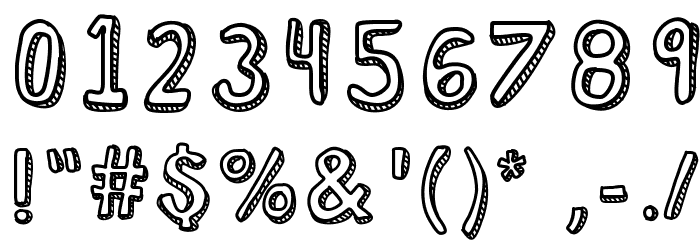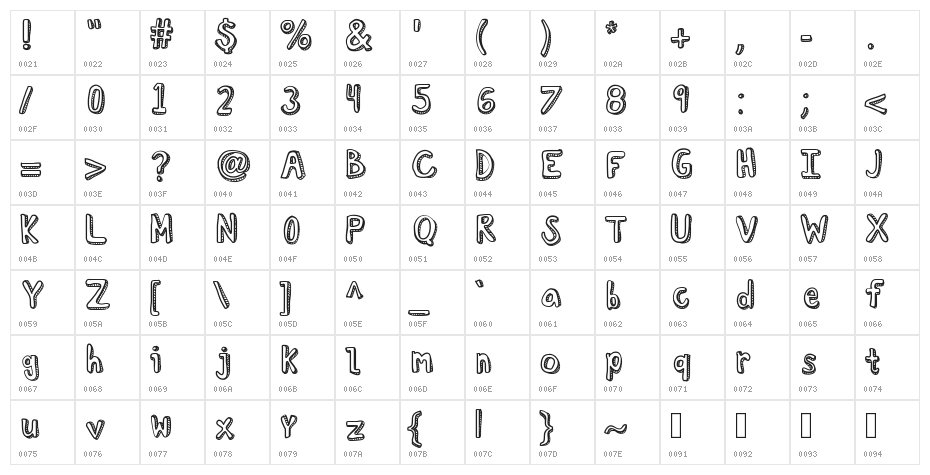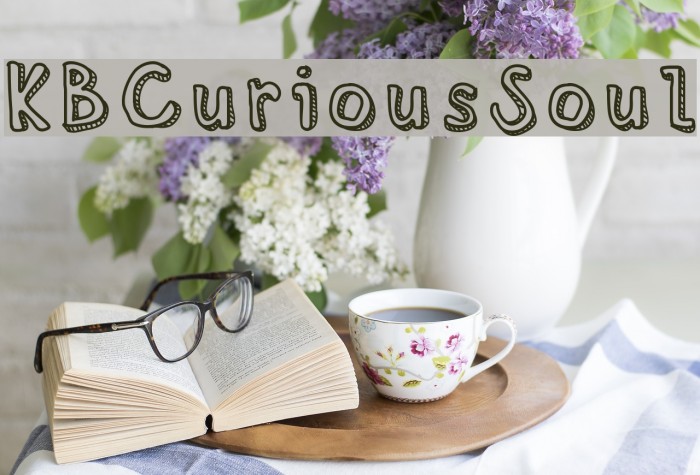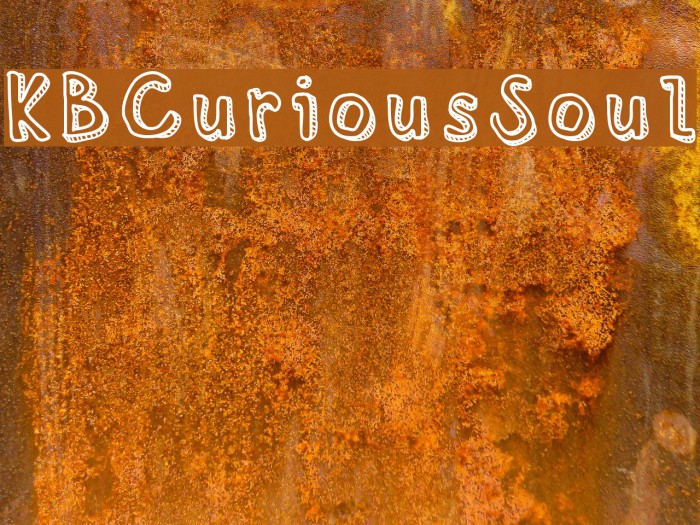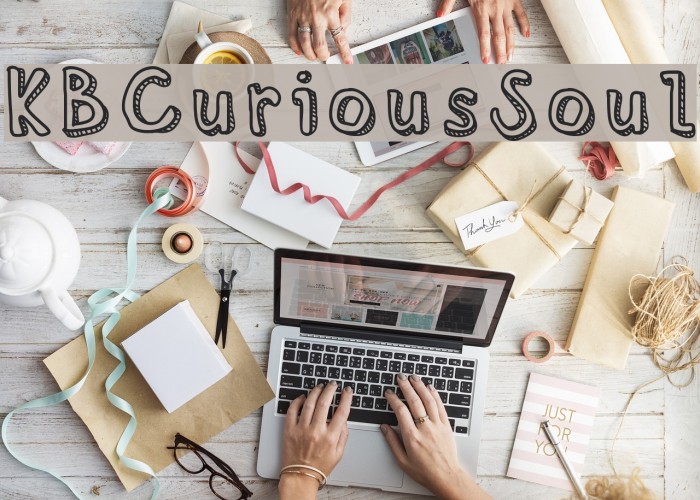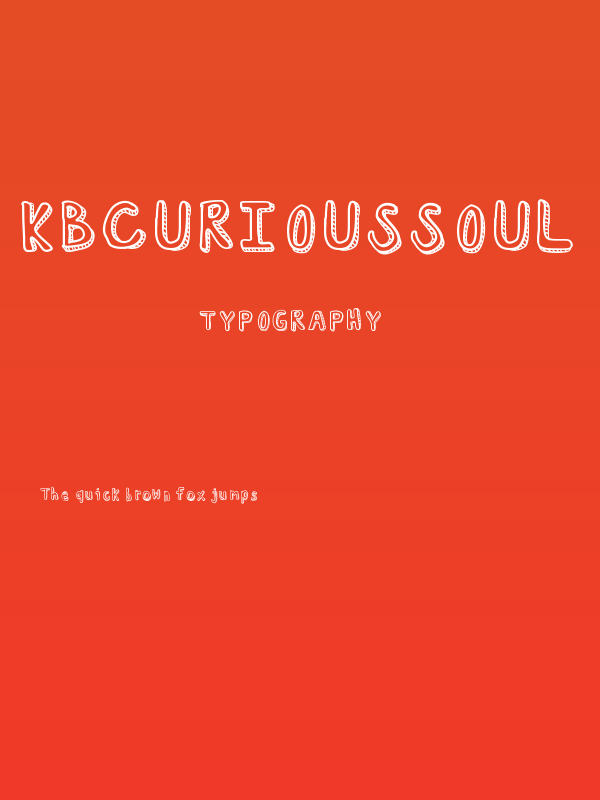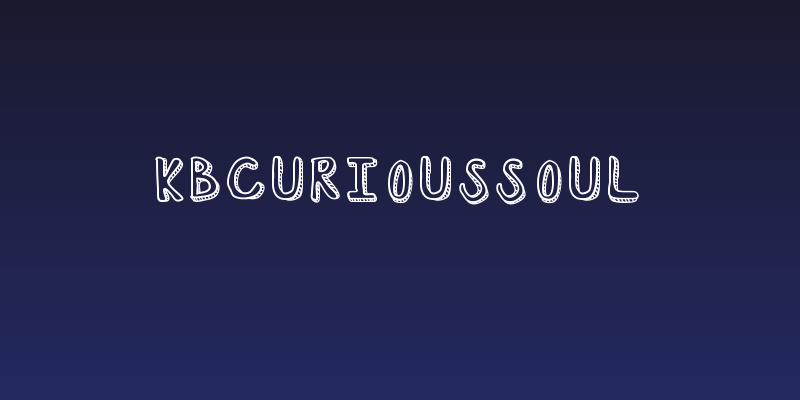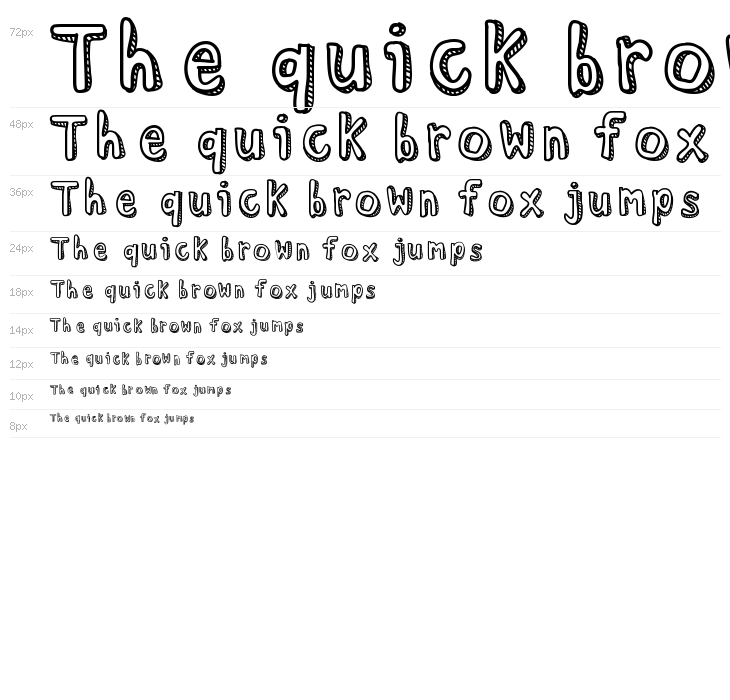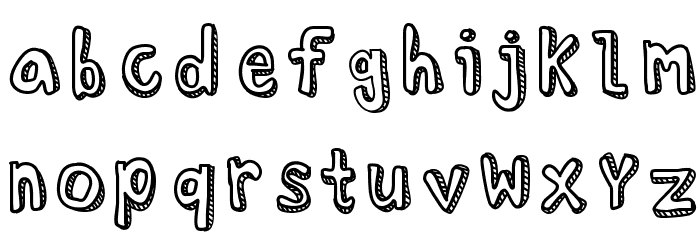
KBCuriousSoul Font
KBCuriousSoul Description
This playful and whimsical font features a hand-drawn style with a dotted outline that adds a unique and quirky touch. The characters are bold and rounded, with a consistent stroke width that gives them a cartoonish appearance. The uppercase and lowercase letters maintain a uniform height, while the numbers and special characters complement the overall design with their similar playful aesthetic. This font exudes a sense of fun and creativity, making it ideal for projects that require a lighthearted and informal tone.
| Overall Style | Whimsical, Playful, Hand-drawn |
| Use Case | Headlines, Logos, Posters, Children's materials |
| Proposed Projects | Perfect for children's books, comic strips, playful branding, greeting cards, and creative posters. |